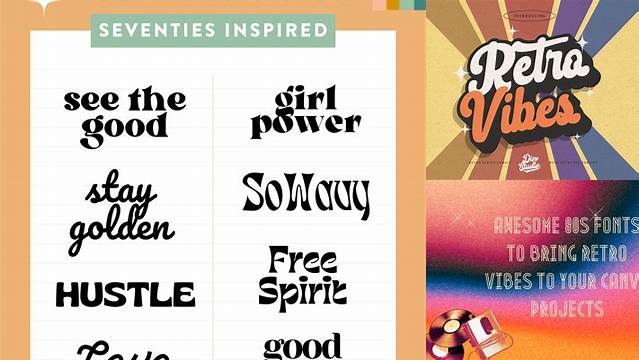
Rocking Retro Vibes: Canva Fonts For Your Designs
Hey everyone! đź‘‹ Ready to dive into the groovy world of retro Canva fonts? We're talking about those fonts that instantly transport you back to the days of bell bottoms, disco balls, and, you know, generally awesome vibes. If you're looking to add a touch of nostalgia, a dash of vintage charm, or just a whole lot of personality to your designs, then you've come to the right place. Whether you're a seasoned designer or just starting out with Canva, using the right retro fonts can seriously elevate your projects. Let's be real, a well-chosen font can make or break a design, and with the right retro font, you can instantly grab attention. So, grab your favorite drink, get comfy, and let's explore the coolest retro fonts that Canva has to offer!
1. Unveiling the Magic: What Makes a Font 'Retro' in Canva?
Alright, before we jump into the font specifics, let's get one thing straight: what exactly is a retro font? Well, it's all about capturing the essence of past eras. Think anything from the elegant serifs of the roaring twenties to the groovy, psychedelic lettering of the 60s and 70s. In Canva, retro fonts are those that evoke a sense of nostalgia, whether it's through their style, shape, or overall aesthetic. They often include elements like bold serifs, rounded letterforms, or even hand-drawn styles, all of which help them stand out from the more modern fonts we see every day. These fonts are designed to bring a touch of history into your designs, making them perfect for projects where you want to create a vintage feel. When choosing retro fonts in Canva, consider the specific era you're aiming for. A font inspired by the art deco period will be very different from a font that looks like it came straight out of the 1970s! This will help you target the right aesthetic and make your design project shine. Remember that the best retro fonts seamlessly integrate with your design's overall theme. This will amplify the vintage vibe and create a design that is both visually appealing and historically inspired. Also, mixing retro fonts can be very effective. Pairing a strong headline font with a simpler body font can create a great balance, ensuring both readability and style. So, keep an eye out for these characteristics when exploring the wide range of retro fonts Canva has! Understanding what gives these fonts their unique charm is the first step to rocking them in your designs.
2. Top 10 Retro Canva Fonts to Instantly Boost Your Designs
Now for the fun part, let’s get into the actual fonts! Here are my top 10 picks for retro Canva fonts that will instantly add that vintage flair to your projects. Buckle up, because this is where the magic happens! First off, we have Playlist Script. This is your go-to font if you want to channel the look of 1950s diners or a vintage movie poster. It's a playful, handwritten script that is perfect for headlines, quotes, or any text that needs a touch of personality. Second, we have Bebas Neue. While not strictly retro, its clean, tall, and strong sans-serif look can easily channel the minimalism of the 1960s and 70s design, think big, bold headlines! Third, we've got Anton. It’s a heavy, condensed sans-serif that screams vintage posters and bold statements. It’s great for headlines or titles where you want to capture attention immediately. Fourth, we have Poppins, a versatile and geometric sans-serif with a hint of a retro vibe, especially when paired with the right color palettes and graphics. Then, we have Playfair Display, a classic serif font that will transport you back to the elegant design of the early 20th century. Sixth is Montserrat, another incredibly versatile font that can be easily adapted to fit the retro aesthetic. Seventh, there's Pacifico, a quirky, handwritten script reminiscent of surf culture. Eighth is Abril Fatface. Its bold serifs instantly evoke the look of vintage headlines and titles. Ninth, Permanent Marker, a playful, hand-drawn font, perfect for a more casual, retro look. Finally, we’ve got Oswald, a condensed sans-serif font with a strong vintage feel, ideal for clean, retro designs. Consider the different eras these fonts can represent, and always think about how they work in the larger scheme of your design. Also, playing around with size, color, and font pairings can significantly enhance their retro charm. Let your creativity flow, and see how these fonts can breathe new life into your projects.
3. Decoding the Eras: Matching Your Project to the Right Retro Font Style
Ever wondered how to nail the perfect vintage vibe in your designs? Matching your project to the right retro font style is key! Let’s break down how to decode these eras and choose fonts that perfectly fit. First, let’s step back to the Roaring Twenties. Think sleek, elegant serifs, think Gatsby! Fonts like Playfair Display can beautifully capture the era's sophistication. To create a truly 1920s feel, focus on elegance and balance. Next, jump to the 1950s. This era is all about bold, playful scripts. Think Diner signs and early rock and roll. Fonts like Playlist Script are perfect for this nostalgic era, which captures the essence of diners and vintage advertising. Don’t be afraid to use bright colors and rounded shapes! Then, we move onto the 1960s. The 60s were all about bold, experimental designs and psychedelic lettering. Think groovy, colorful fonts like Pacifico that capture the wild, free spirit of the era. This is your chance to get creative with color and pattern. The 1970s are known for their bold sans-serif and funky styles. Think big, blocky fonts like Bebas Neue. The key here is to embrace the funky and playful vibes! When choosing fonts, consider the overall tone and message of your project. For a classy, vintage look, stick with elegant serifs. For a more playful feel, choose bold scripts. And for a funky, experimental vibe, go wild with psychedelic fonts!
3.1. Retro Fonts for the Roaring Twenties: Evoking Elegance and Class
When it comes to capturing the glamour and elegance of the Roaring Twenties, the right font can work wonders. The era was all about sophistication, with fonts reflecting art deco designs, elegant serifs, and refined lettering styles. To evoke the spirit of the 1920s, choose fonts that embody those qualities. Playfair Display is a fantastic option. Its classic serif design beautifully complements the era's aesthetic. When using Playfair Display, consider pairing it with a more modern sans-serif font for body text to maintain balance. Alternatively, explore other classic serif fonts available within Canva to create a similar effect. Art deco fonts, with their geometric shapes and bold lines, also perfectly represent the 1920s. These fonts often feature elegant, stylized details. You can find them in Canva by searching terms like 'art deco' or 'vintage'. When designing, pay attention to how you can mix these fonts to create a harmonious design. A bold art deco headline combined with a classic serif body font can produce a stunning vintage look. Additionally, consider using a color palette that was typical of the era – think deep jewel tones or metallics. Also, consider adding elements like gold foil effects or vintage-inspired illustrations to further enhance your design. The overall goal is to create a sense of sophistication and timeless elegance. Experiment with various layouts, color schemes, and font combinations to achieve the perfect vintage look that best suits your needs. Remember, the font is the foundation!
3.2. Groovy Graphics: Selecting Fonts for the Psychedelic Sixties
The Sixties were a whirlwind of color, creativity, and counterculture. The fonts of this era reflected this bold experimentation. To create designs reminiscent of the psychedelic sixties, you need fonts that scream groovy. Look for fonts with playful shapes, flowing scripts, or bold, hand-drawn styles. A font like Pacifico is perfect! It has a hand-drawn script that captures the free-spirited nature of the decade. Search for fonts labeled “retro” or “groovy” in Canva to explore a wider array of options. Consider the use of bold, vibrant colors and abstract patterns. Embrace the use of textures such as tie-dye, or textured backgrounds. These visual elements will amplify the nostalgic vibe. The goal is to capture the bold, artistic spirit of the era. Consider using fonts with thick strokes and rounded edges, often seen in psychedelic posters and album art. The key is to select fonts that not only match the aesthetic but also allow you to express the freedom and optimism of the decade. Combining these elements will create designs that pay homage to the era's vibrant energy. Keep an open mind, experiment with different combinations, and enjoy the process!
3.3. Funky Fonts and Far Out Designs: Mastering the Seventies Look
The seventies were all about bold experimentation, including in design! Fonts during this era often had a distinctive look and feel, reflecting the decade’s groovy energy. To perfectly capture this style, you must choose fonts that evoke the 1970s. Look for fonts with strong, bold serifs or sans-serif designs. Fonts with a slightly condensed appearance are also very common. In Canva, explore fonts by searching keywords such as '70s,' 'vintage,' or 'retro.' This will show fonts that capture the funky style. The 1970s look is often associated with earth tones, vibrant colors, and groovy patterns. Use these in your designs. The key to mastering the 1970s look is to embrace the fun and experimental spirit of the era. Feel free to create designs that reflect the decade's unique visual style. Experiment with different layouts and combinations until you find the perfect font pairing to capture the authentic spirit of the seventies. You can easily blend and mix these fonts to create a design that both feels retro and looks stylish. Experiment with different fonts, patterns, and colors until you can create unique and eye-catching designs. Let your creativity flow!
4. Canva Font Pairing: Creating Harmonious Retro Designs
Font pairing is an art form that can make or break your retro designs. Finding the right combinations helps to create balance, visual interest, and readability. Start by selecting a headline font and a body font. Your headline font should grab attention, with bold and eye-catching designs. It is a great way to showcase the retro vibe of your project. Your body font should be clear and easy to read, ensuring that your message is easily absorbed. Think about pairing a bold, retro headline font with a clean, easy-to-read body font. Contrast can also create interesting effects!
4.1. The Art of Balance: Pairing Headline and Body Fonts for Readability
Finding the right balance between your headline and body fonts is crucial. The aim is to ensure that your design is both stylish and easy to read. A well-balanced font pairing will enhance the overall design and improve communication. Consider the font characteristics. You want a headline font that's bold and catches the eye. Your body font should be simpler, ensuring your text is readable. Explore contrasts. Pair bold serifs or vintage-style scripts with a clean sans-serif. You can create a clear visual hierarchy while maintaining your retro aesthetic. When choosing fonts, consider the personality you want to convey. A sophisticated design might use an elegant serif with a clean sans-serif. This type of pairing offers a blend of classic and modern vibes. If the goal is a casual or fun look, a playful script with a more basic sans-serif may be great. Experiment with font sizes, weights, and styles to refine the hierarchy. Start with the headline font much bigger than your body text, and choose a font weight that adds emphasis. Ensure that your body font is readable at its designated size. You can play around with letter spacing. Tighten or loosen the letter spacing in both fonts to optimize readability and aesthetics. The goal is to create a visually appealing design where the message is clear and easy to absorb. Test different combinations, and see what works best.
5. Mastering Canva: Finding and Using Retro Fonts Like a Pro
Alright, now that you have a good idea of what to look for, let's talk about how to actually find and use these amazing retro Canva fonts! Canva makes it super easy to find and incorporate these fonts into your projects, so let's dive in! First, you need to go to Canva, and start creating your design. Once you are in the editor, select a text box. Use the font selection drop-down menu to explore your options. To search for retro fonts, you can either use the search bar and type in terms like